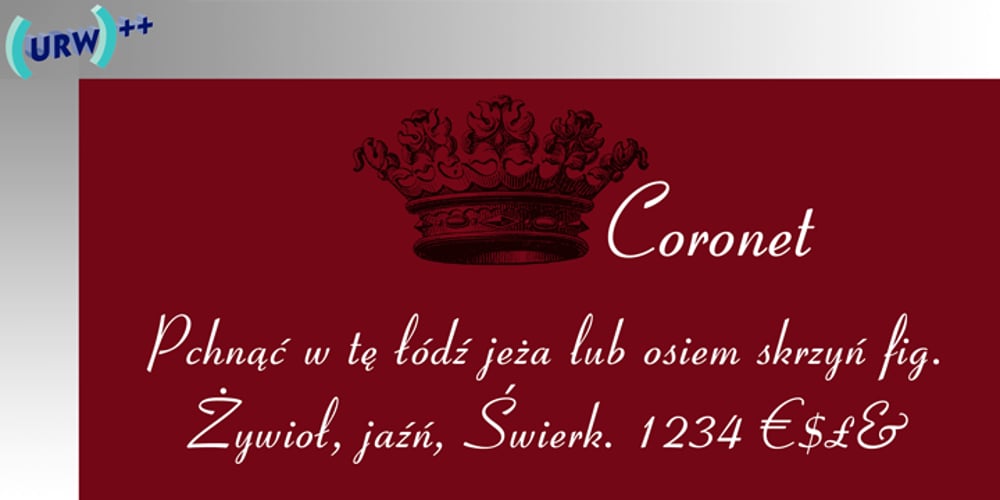
Coronet I
Coronet I font
Coronet I Font Family was designed by Robert Hunter Middleton and published by URW Type Foundry. Coronet I contains 1 styles and family package options. Coronet is a non-joining script font first issued by Ludlow. The capitals have been drawn with a degree of freedom whereas the lowercase are more formal in structure. The ascending lowercase letters of the Coronet font are quite tall, descenders are short. Coronet is a useful script for informal occasions, such as invitations, flyers and greetings cards.